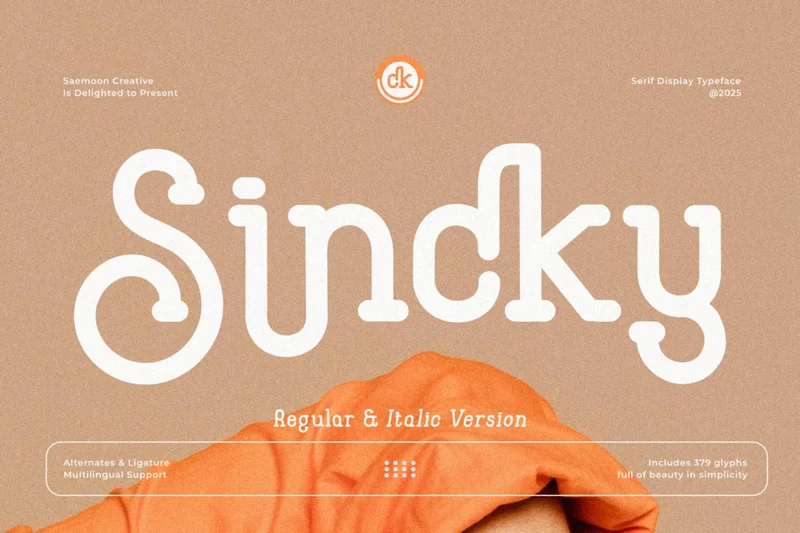
Sincky
Sincky – Serif Display Typeface
Sincky is a stylish serif display typeface that combines elegance and creativity in one design. With its soft monoline strokes, unique curves, and refined letterforms, Sincky delivers a timeless yet modern feel for your projects. It comes with a collection of alternates and ligatures, giving you the flexibility to create standout typography with ease.
Perfect for logos, branding, packaging, editorial design, invitations, and more — Sincky brings a playful sophistication to any layout.
Make your design shine with Sincky — full of beauty in simplicity.